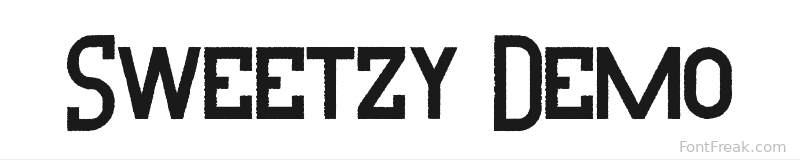
Sweetzy Demo
Sweetzy Demo Bold
Sweetzy Demo by Noah Type is a striking display font that captures attention with its bold and contemporary character. This freeware font features a unique style that blends modern aesthetics with a touch of playfulness, making it a versatile choice for various design applications. The font showcases a heavy stroke weight with minimal contrast, lending it a solid and robust appearance. Its slightly irregular edges provide a handcrafted feel, enhancing its visual appeal while ensuring legibility even at larger sizes. The spacing is well-balanced, allowing for easy readability without compromising its artistic flair.
Sweetzy Demo is ideal for a range of creative projects. It shines in applications such as wedding invitations, where its playful yet bold design can add a unique touch to the celebration. Additionally, it makes a strong statement in movie posters, drawing viewers in with its eye-catching presence. Restaurant menus can also benefit from this font, as it adds a modern twist that aligns well with trendy dining concepts. Content creators looking to elevate their branding or social media graphics will find Sweetzy Demo to be an excellent choice, as it conveys a sense of creativity and innovation.
The target audience for this font includes graphic designers seeking to infuse their projects with a fresh, bold aesthetic, as well as small business owners looking to create memorable branding. Content creators will also appreciate its versatility in various digital contexts.
What sets Sweetzy Demo apart is its ability to combine boldness with a whimsical charm, making it suitable for both formal and casual settings. For anyone looking for a distinctive typeface, the Sweetzy Demo font free download offers an opportunity to elevate design projects with a unique flair.